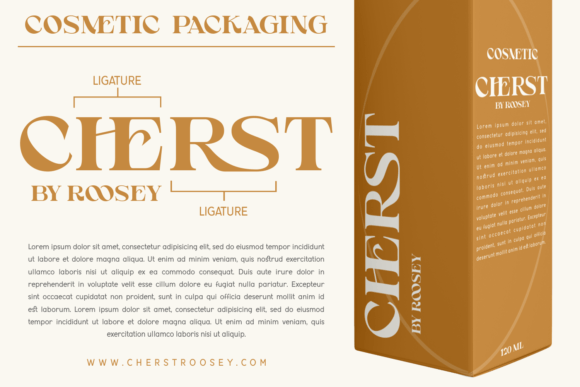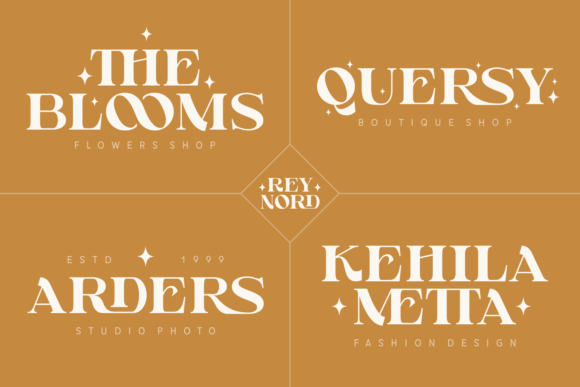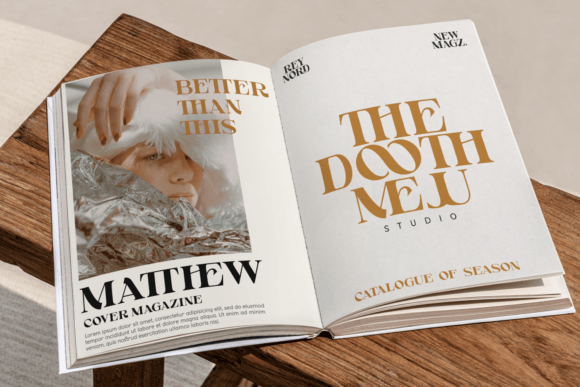
Introduction to Reynord Font
Reynord is an exquisite and modern serif font with an impeccable look.
Use it to create outstanding branding projects, logos, business cards, invitation cards, and other creative designs .
Reynord Font offers exceptional quality and versatility, making it a valuable addition to your design toolkit. Whether you’re creating for personal projects or commercial use, Reynord Font delivers professional results.